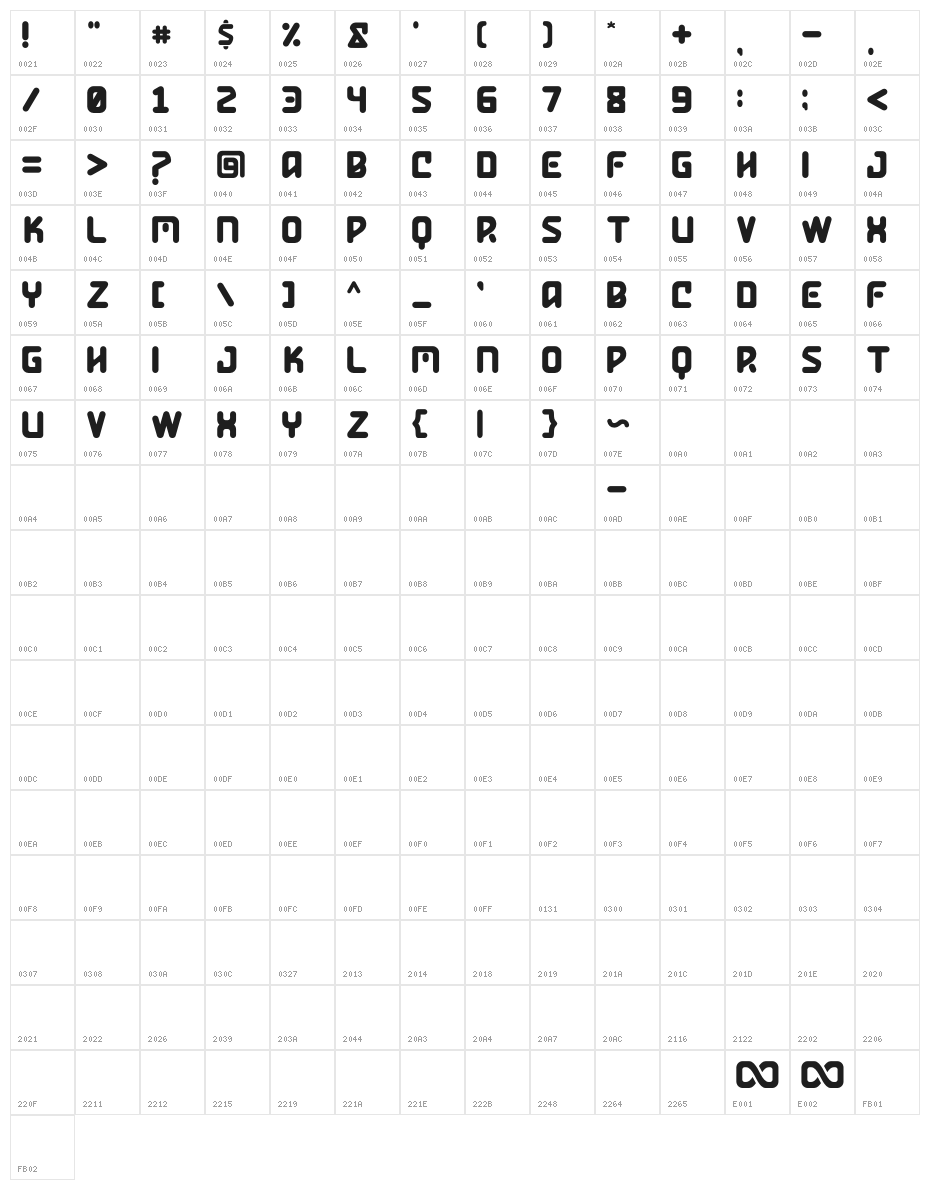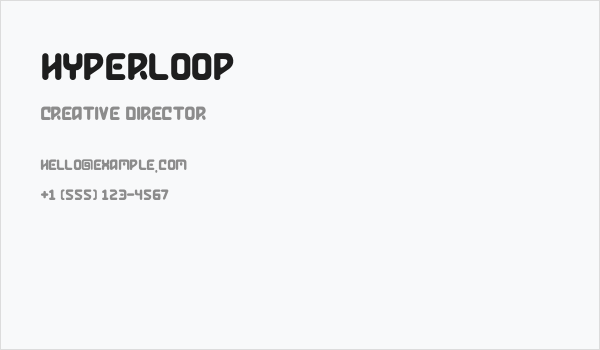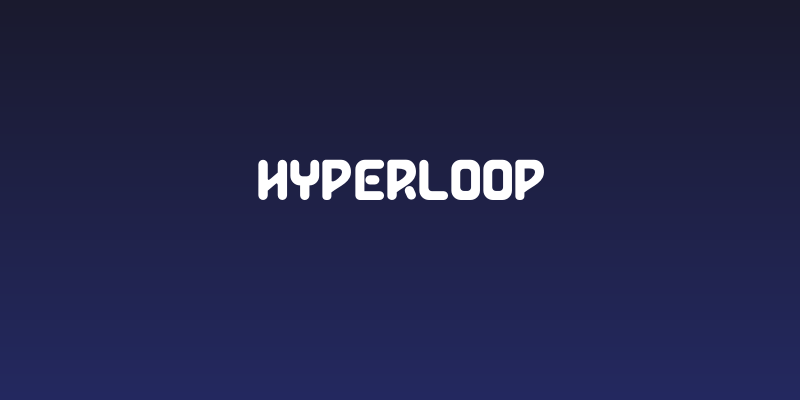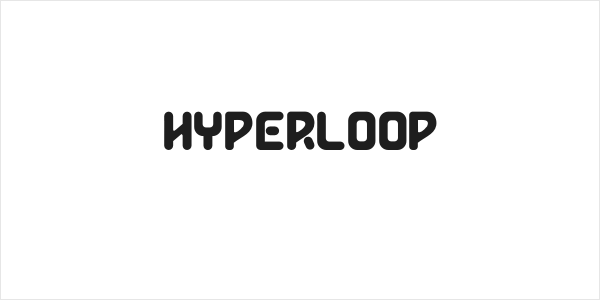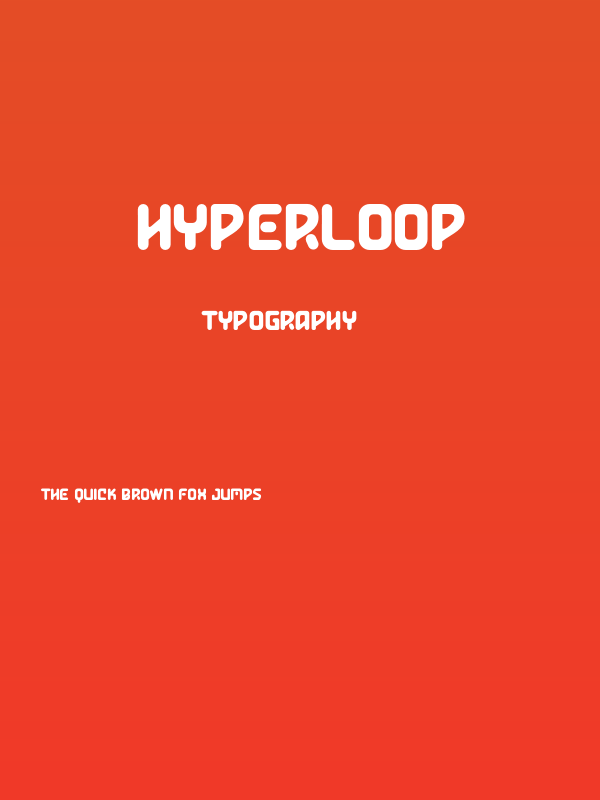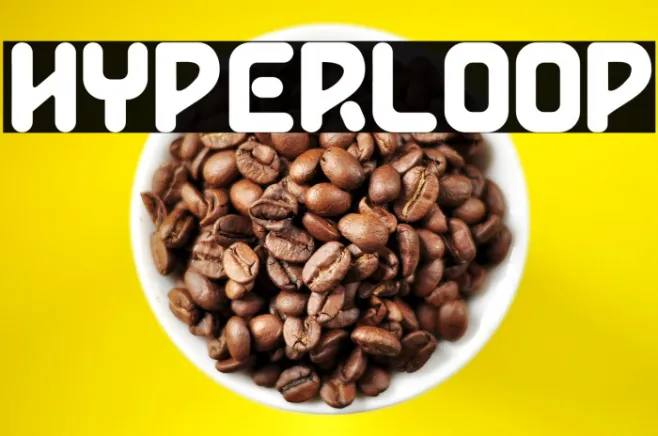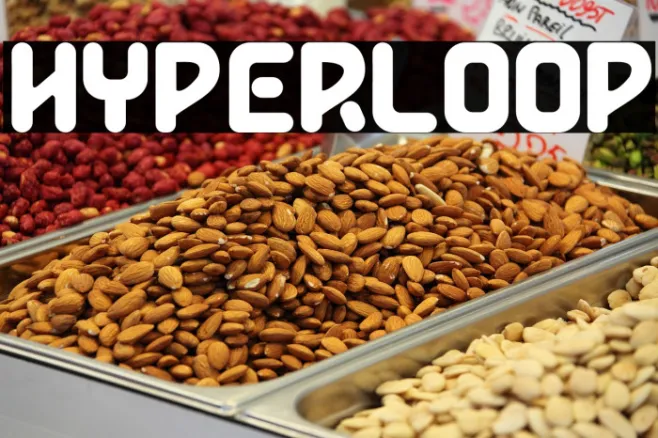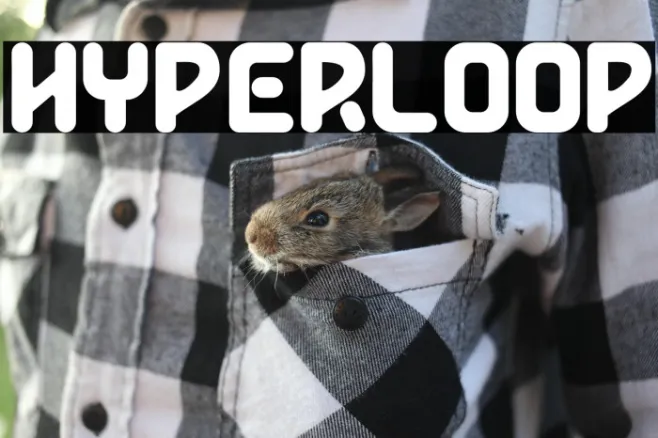
HYPERLOOP Font
HYPERLOOP Description
This font features a bold, geometric style with rounded edges, giving it a futuristic and modern appearance. The characters are uniformly thick, with a consistent stroke width that maintains a strong visual presence. The rounded corners soften the overall look, making it approachable while retaining a sense of technological advancement. The numerals and special characters follow the same design principles, ensuring a cohesive appearance across all elements. The font's structure is clean and uncluttered, making it suitable for a variety of digital and print applications.
| Use Case | Headlines, Logos, Digital interfaces |
| Proposed Projects | Ideal for technology branding, futuristic posters, digital interfaces, and modern advertising campaigns. |